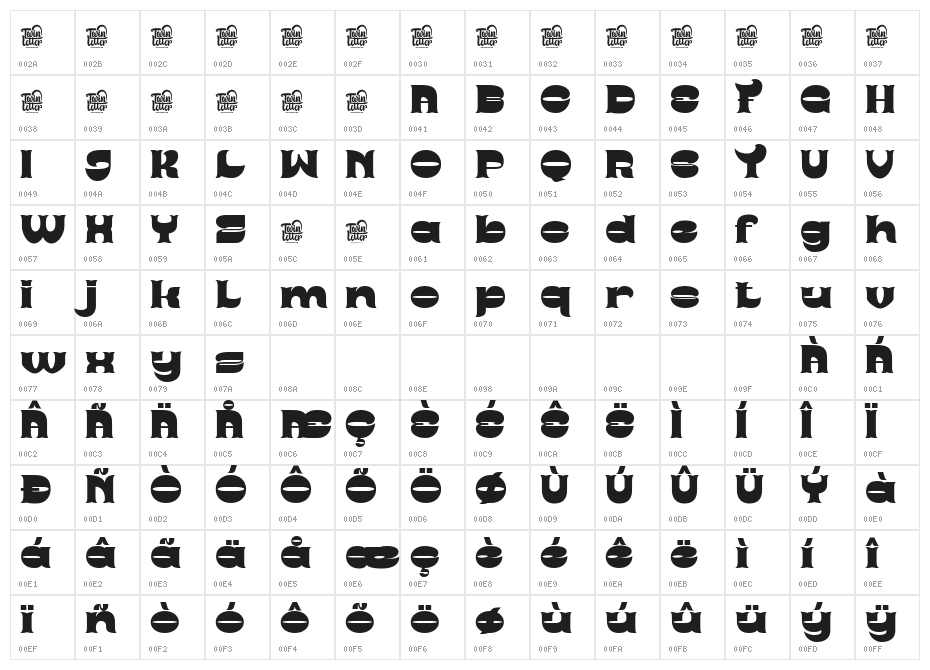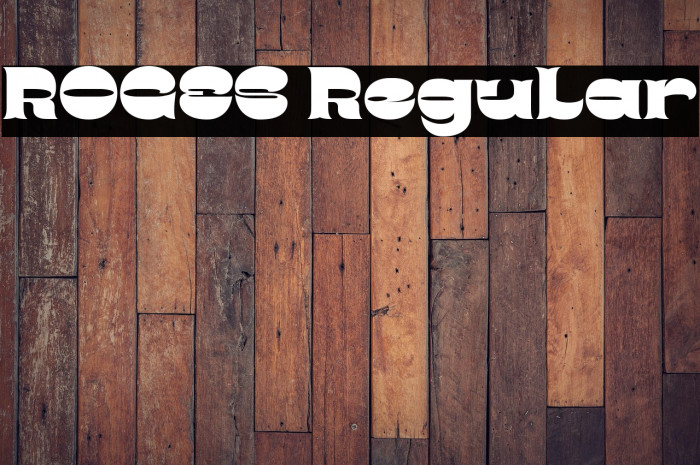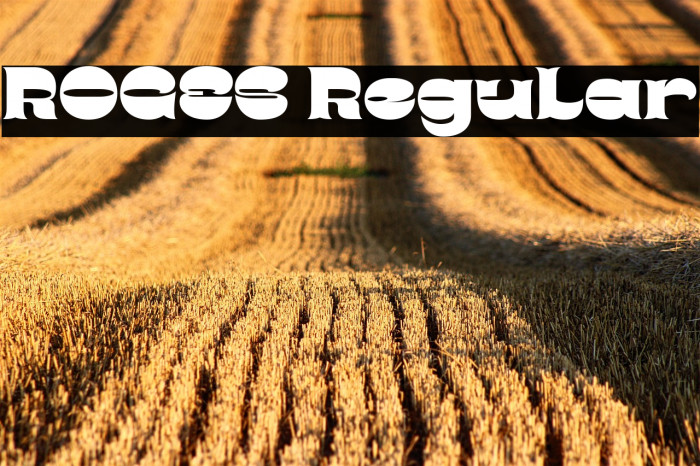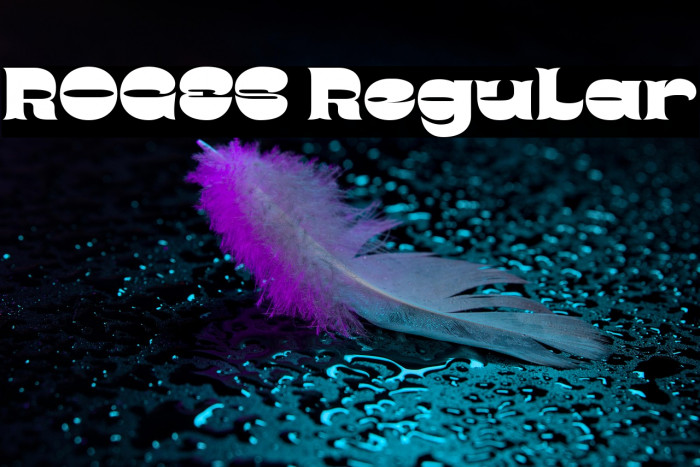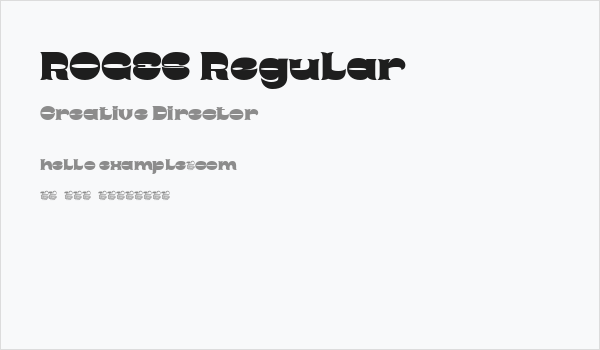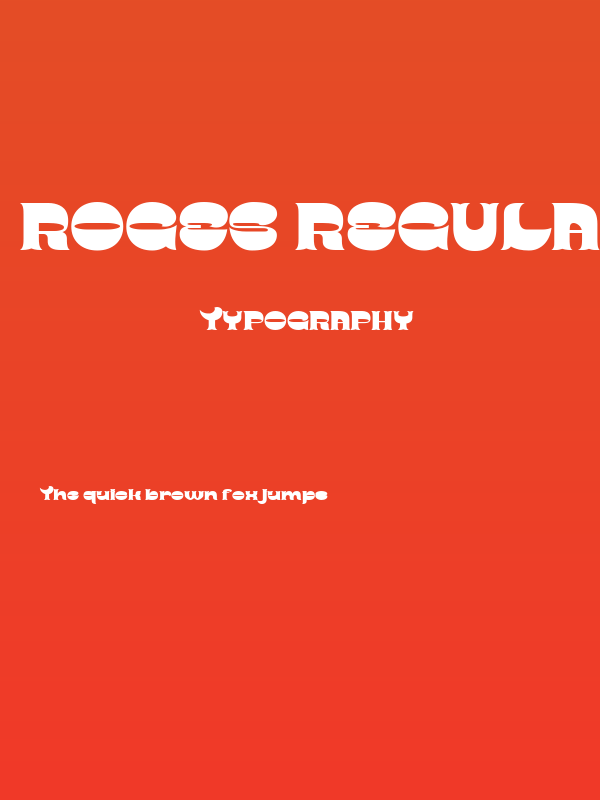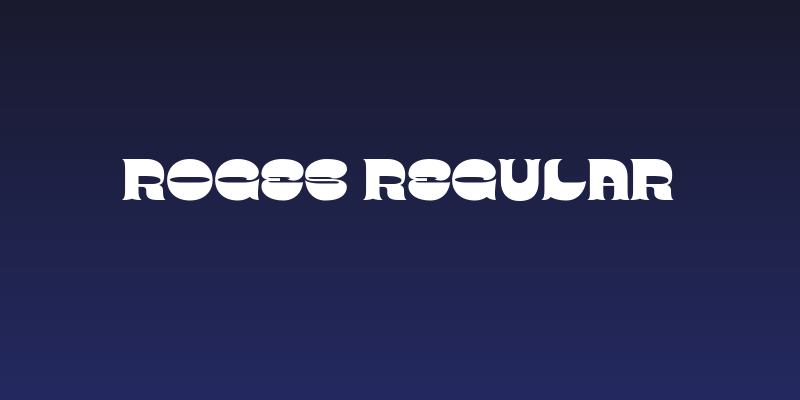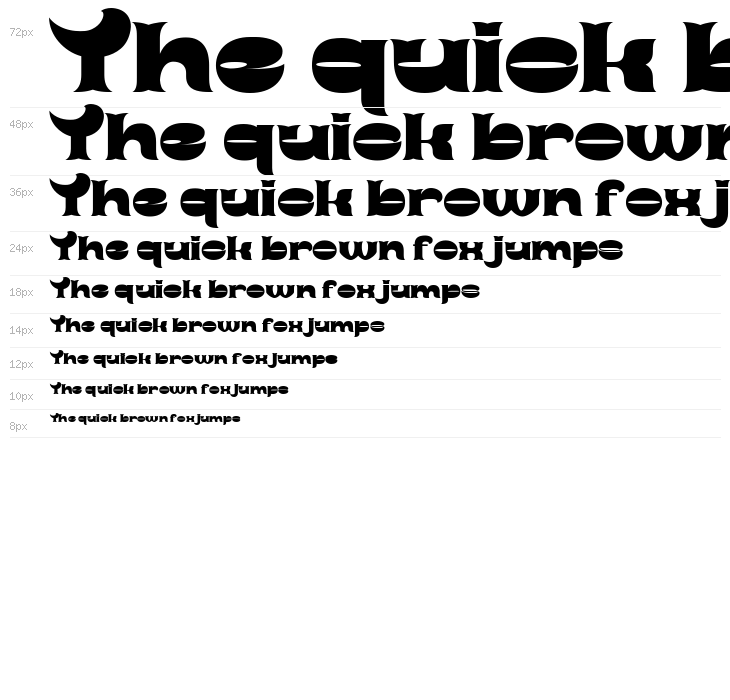
ROGES Regular Font
ROGES Regular Description
This font features a bold and striking design with a unique blend of geometric and organic shapes. The characters are crafted with a high contrast between thick and thin strokes, giving it a dynamic and eye-catching appearance. The uppercase letters exhibit a strong presence with their wide and rounded forms, while the lowercase letters maintain a consistent style with slightly more fluid curves. The font's playful yet assertive style makes it suitable for creative and modern design projects. Its distinctive look is further enhanced by the tight spacing between characters, which adds to its boldness and impact.
| Use Case | Logos, Headlines, Posters |
| Proposed Projects | Perfect for branding, poster design, album covers, and any project requiring a bold, modern aesthetic. |